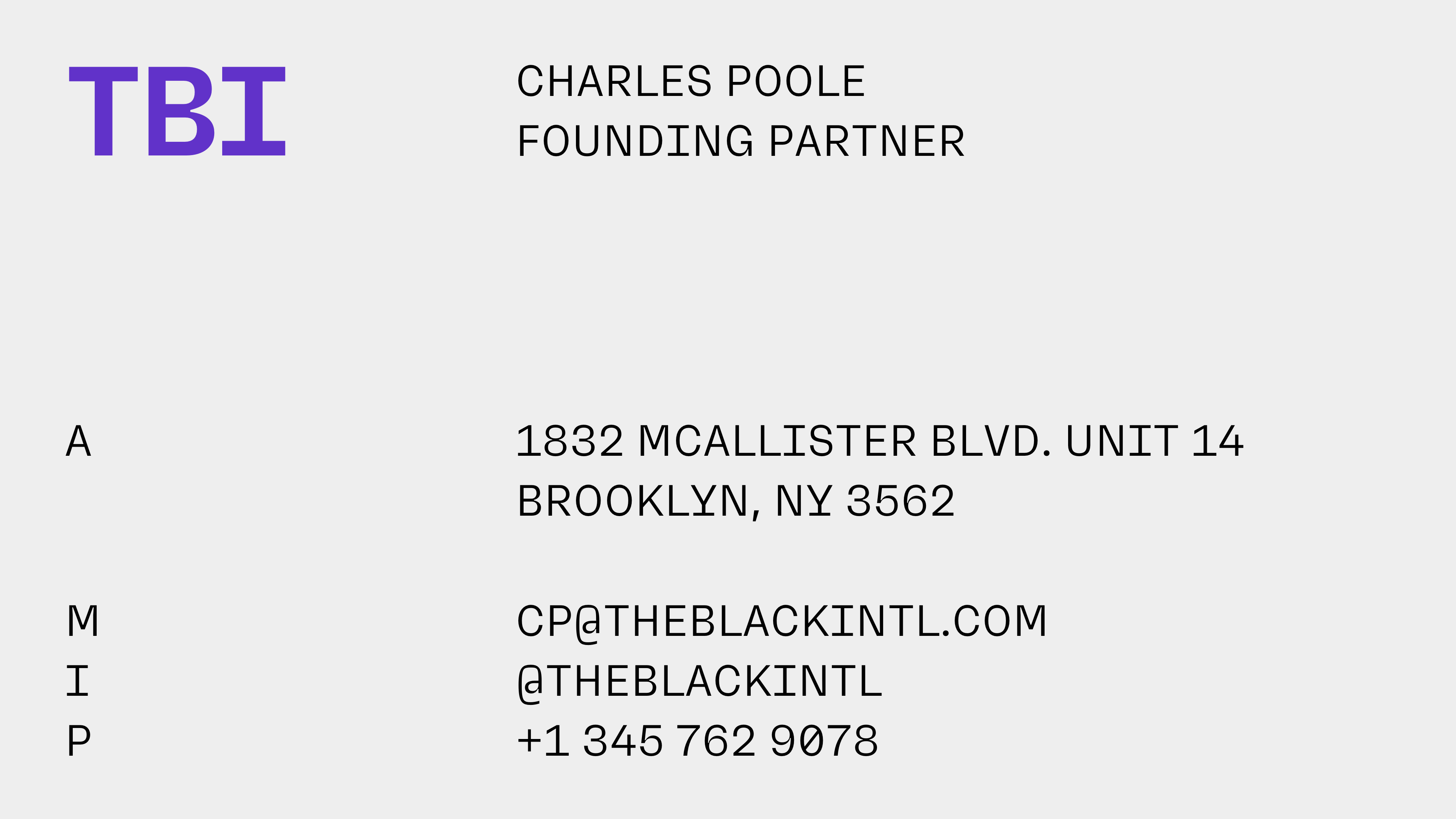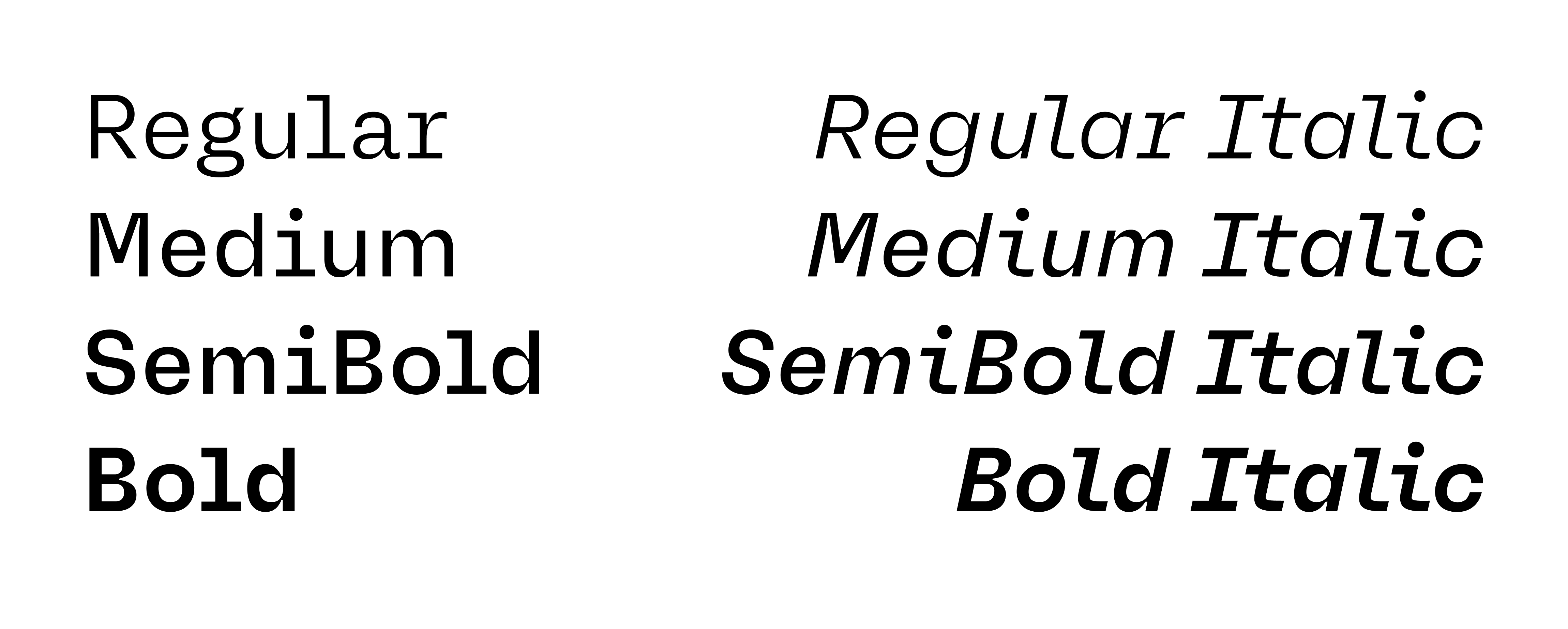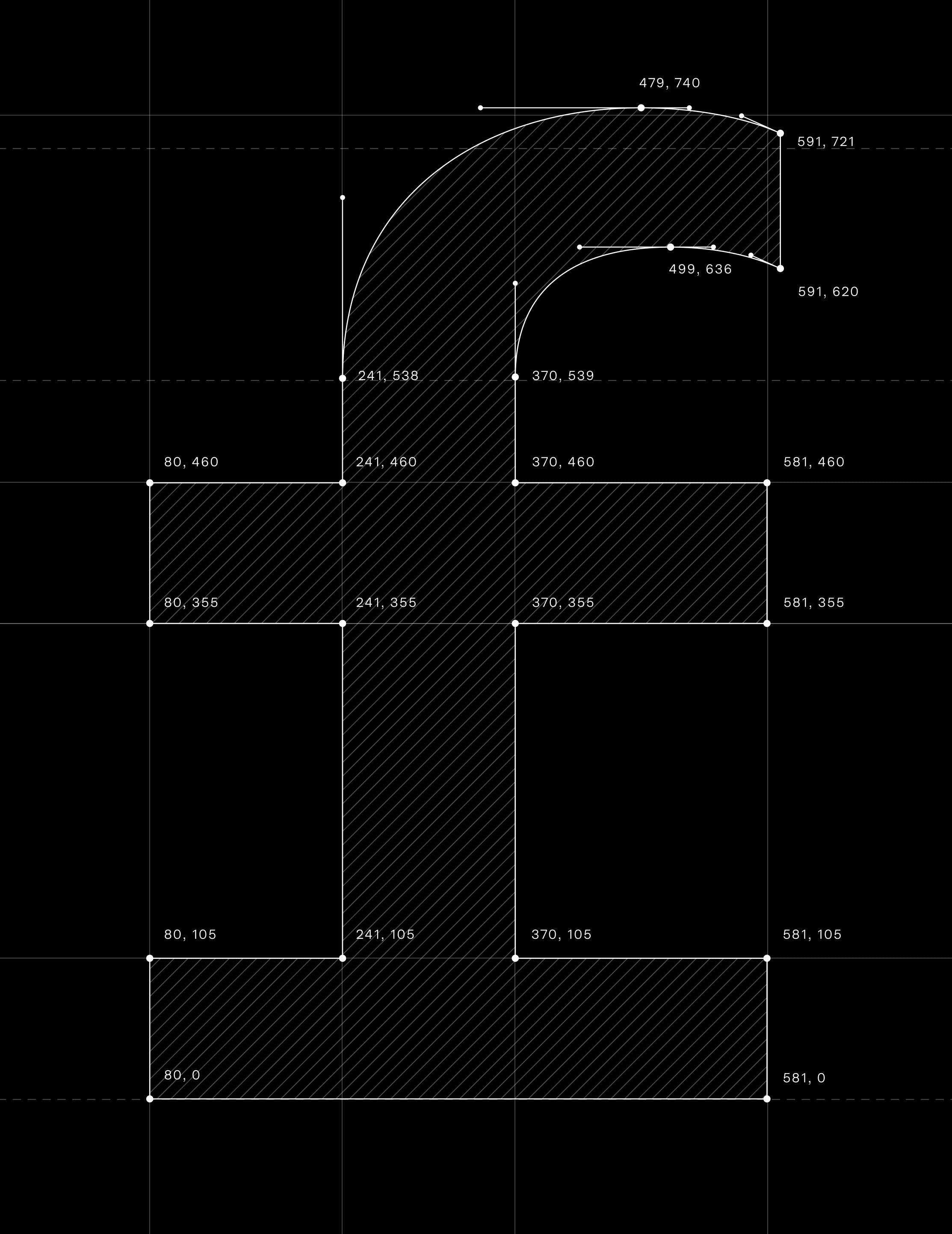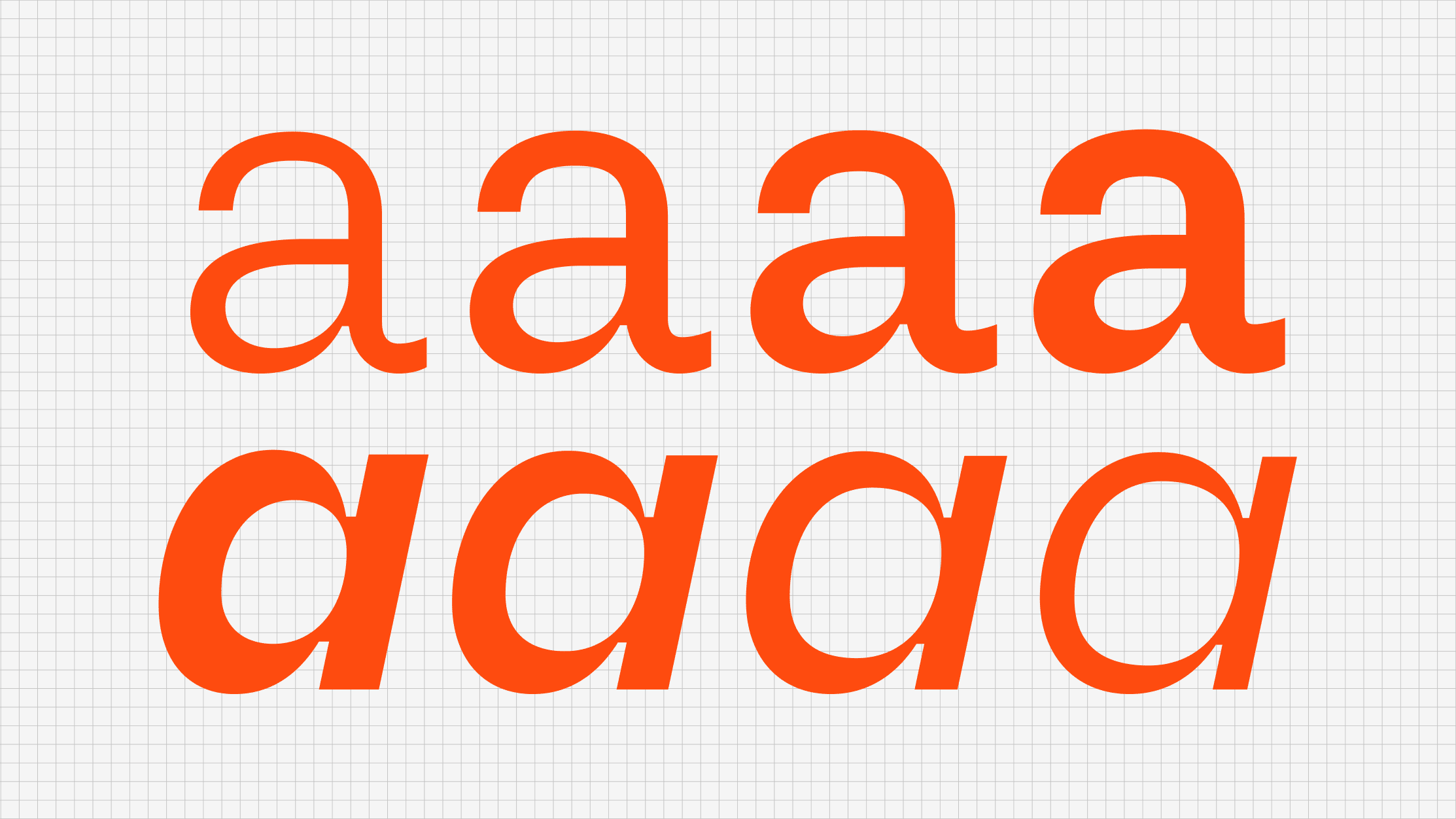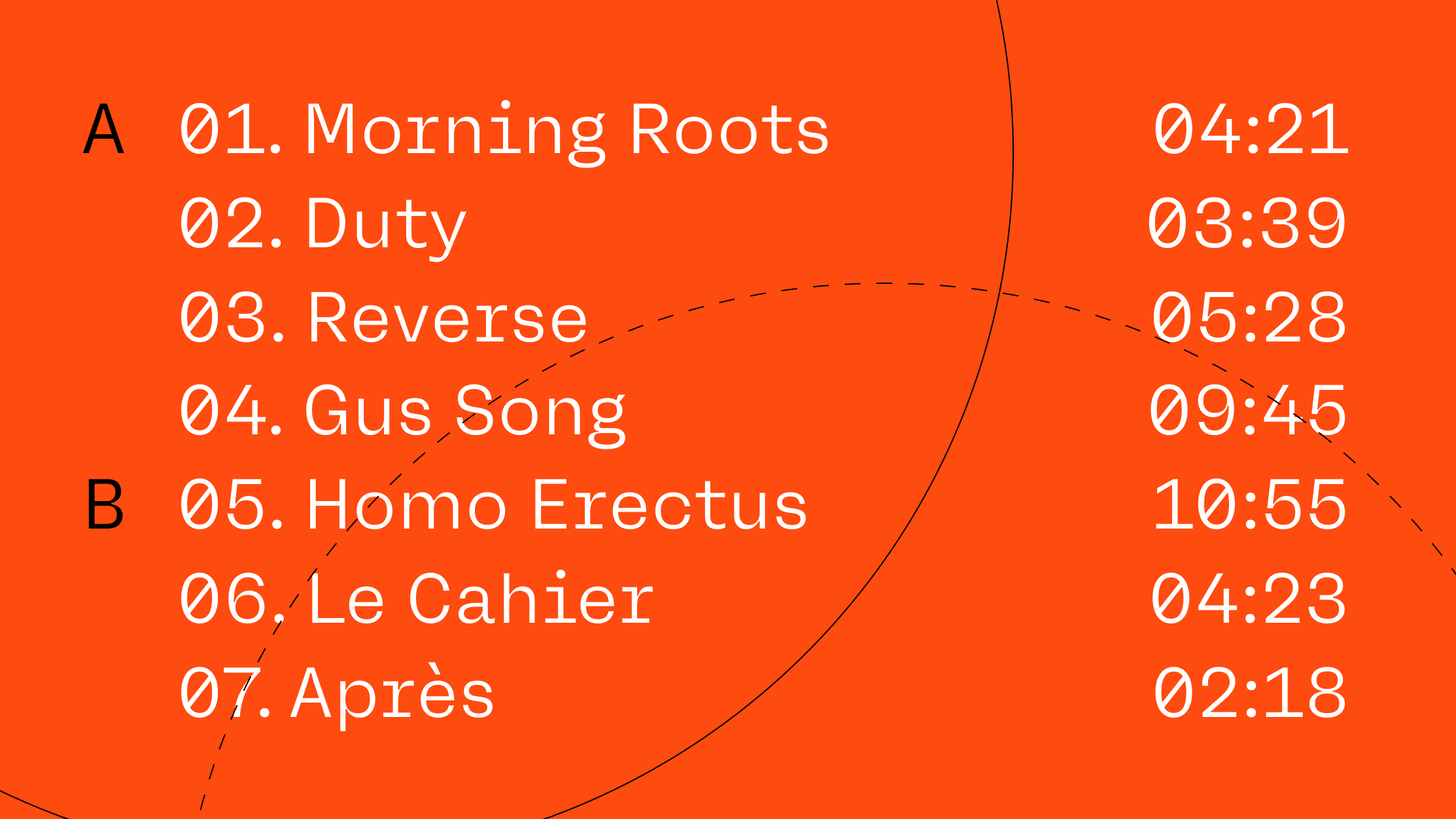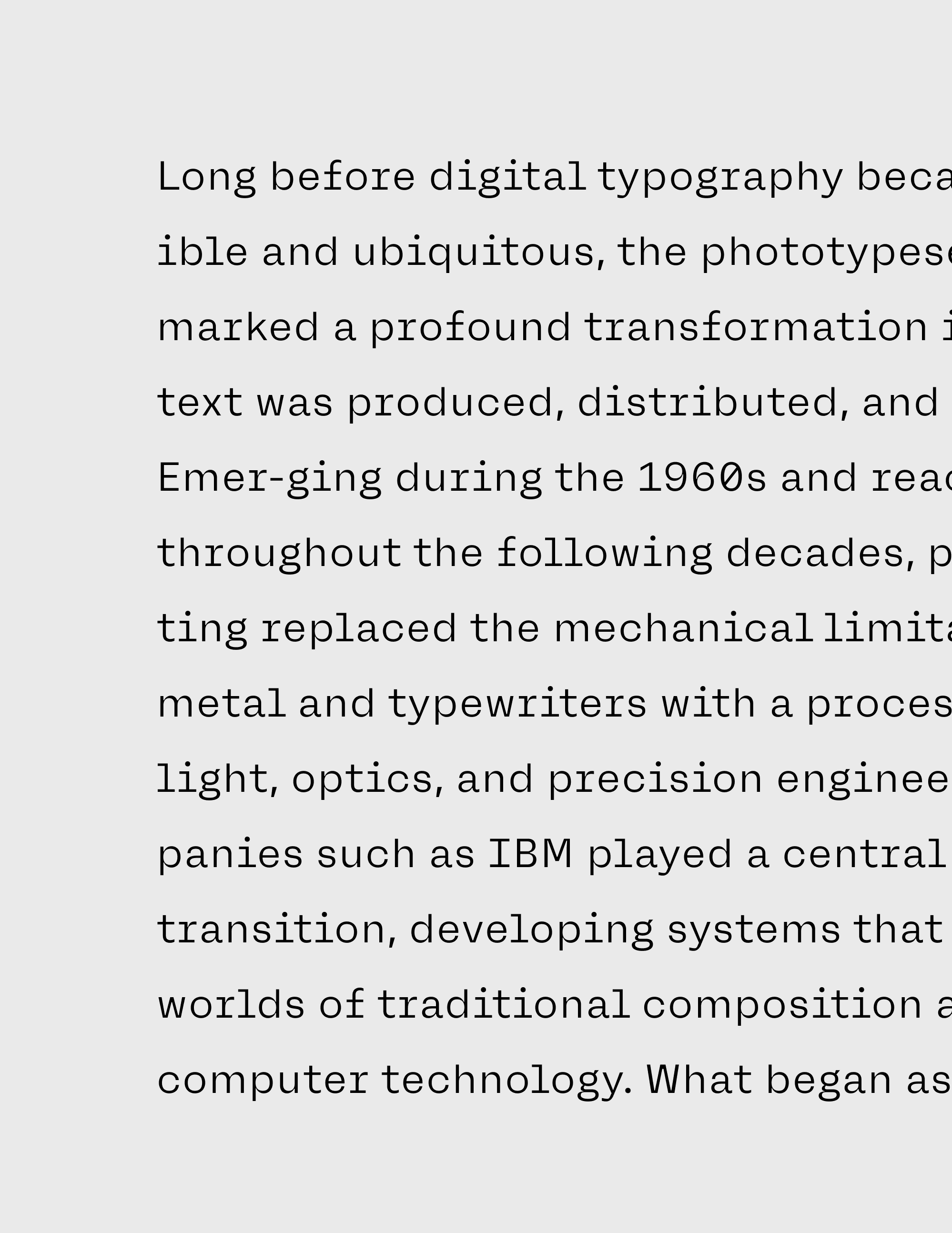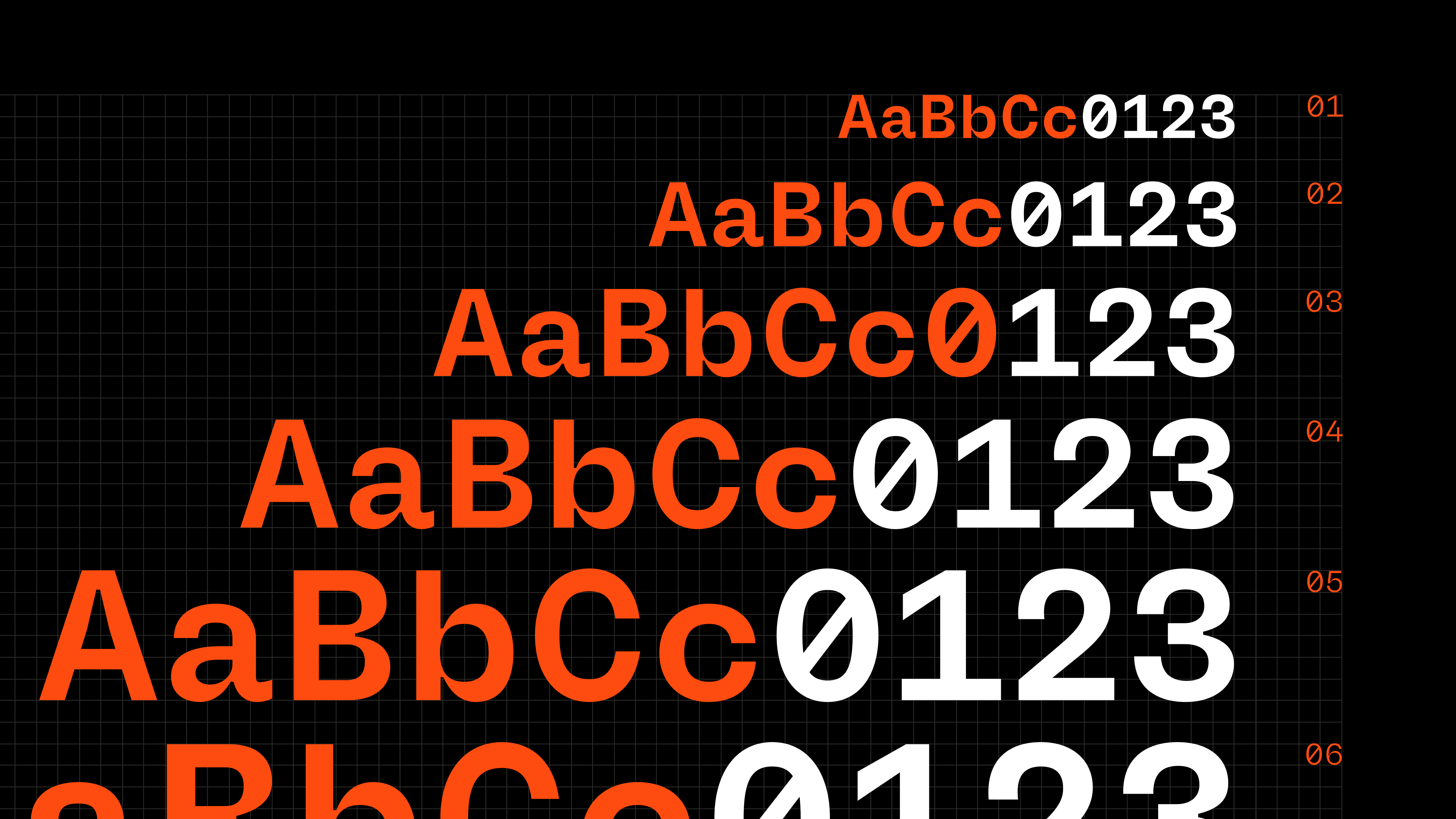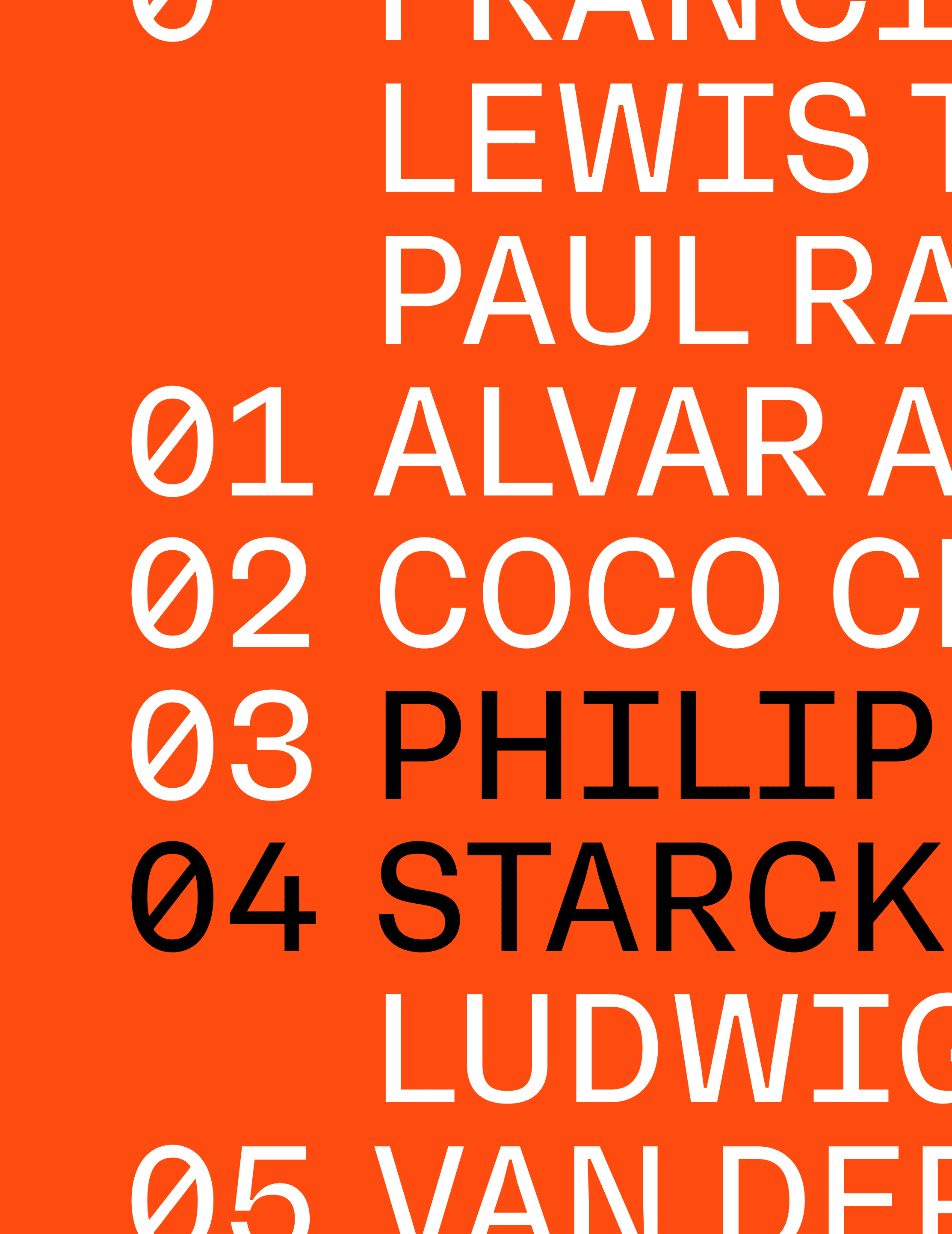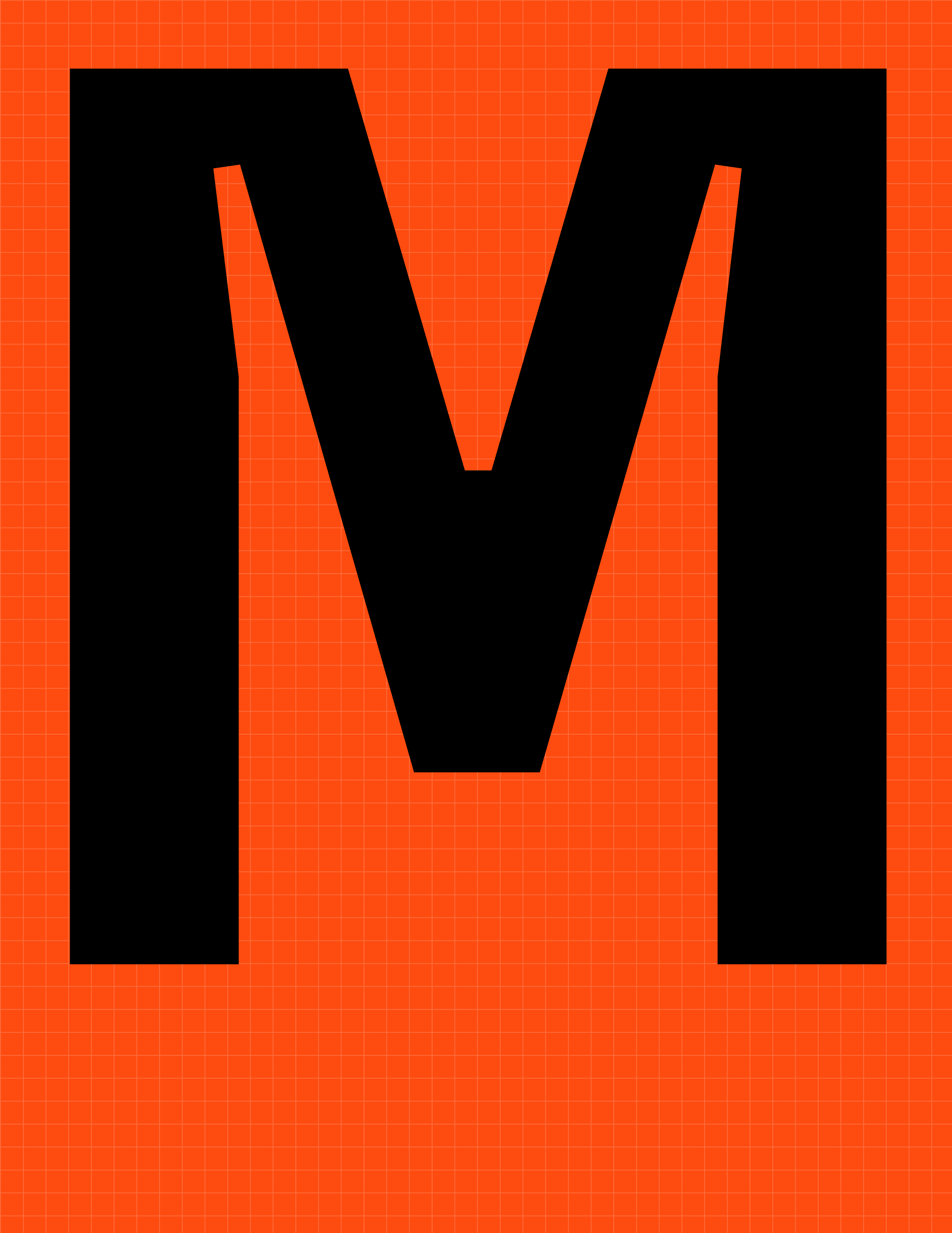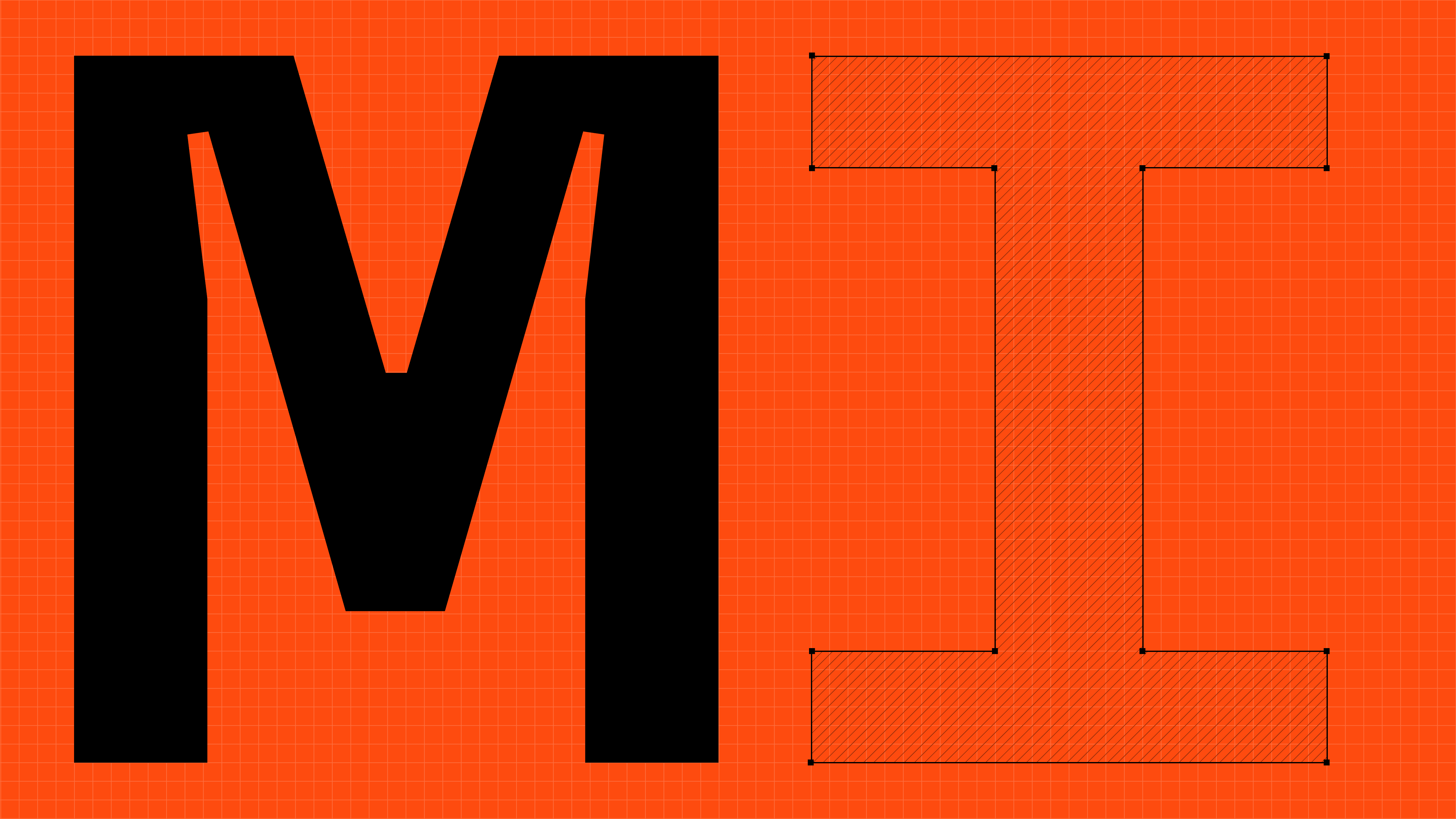
Neue Rational Mix
Neue Rational Mix bridges monospaced and proportional typography, combining fixed-width character with the rhythm of proportional spacing. Also available in Normal, Narrow, Condensed, and Mono.